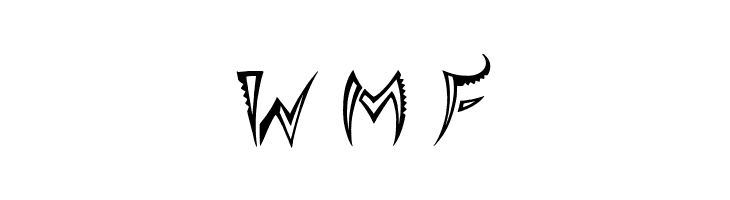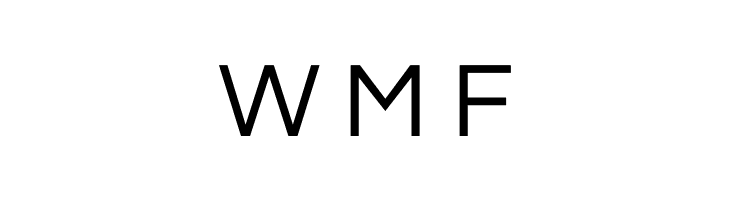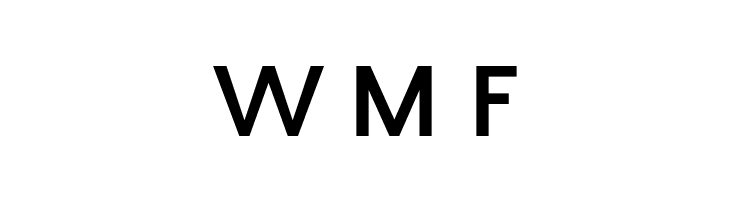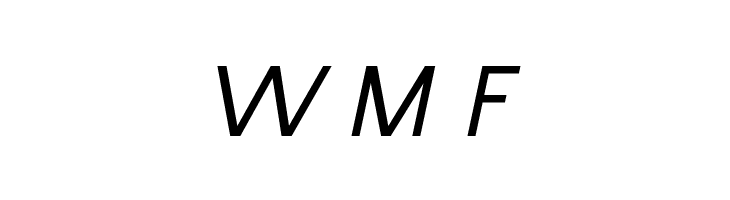
A modern, italic font with sharp, geometric characters and subtle contrast.
A geometric and modern typeface with a structured, compact design.
A bold, slab serif font with a modern and vintage blend.
A bold, edgy font with sharp, angular details and a dramatic style.
A classic serif font with balanced proportions and refined details.
A bold, classic serif font with sharp serifs and a strong presence.
A classic serif font with elegant details and balanced proportions.
A modern sans-serif font with clean lines and excellent readability.
A modern, bold sans-serif font with excellent readability and a clean design.
A modern, elegant sans-serif font with a subtle italic slant.
A classic serif font with elegant, well-defined serifs and moderate contrast.
A modern sans-serif font with clean lines and balanced proportions.
A bold, modern sans-serif font with clean lines and balanced proportions.
A bold, italicized sans-serif font with a modern and elegant style.
A clean and elegant italic typeface with smooth curves and consistent stroke width.
A clean, modern sans-serif font with uniform stroke width and excellent readability.
A modern, clean sans-serif font with uniform stroke width and excellent readability.
A bold, geometric font with sharp angles and a modern aesthetic.
A modern, rounded sans-serif font with a bold weight and geometric structure.
A modern, rounded sans-serif font with bold and italicized features.
A modern, rounded italic font with smooth, consistent strokes.
A clean, geometric font with rounded edges and a modern aesthetic.
A sleek, modern, and elegant light italic font with clean lines and balanced spacing.
A modern, rounded sans-serif font with clean lines and balanced proportions.
A modern, rounded font with a slight italic slant and uniform stroke width.
A modern, light, and geometric sans-serif font with rounded edges.
A modern, light, and slightly slanted font with a clean and elegant design.
A modern, rounded sans-serif font with a clean and approachable design.